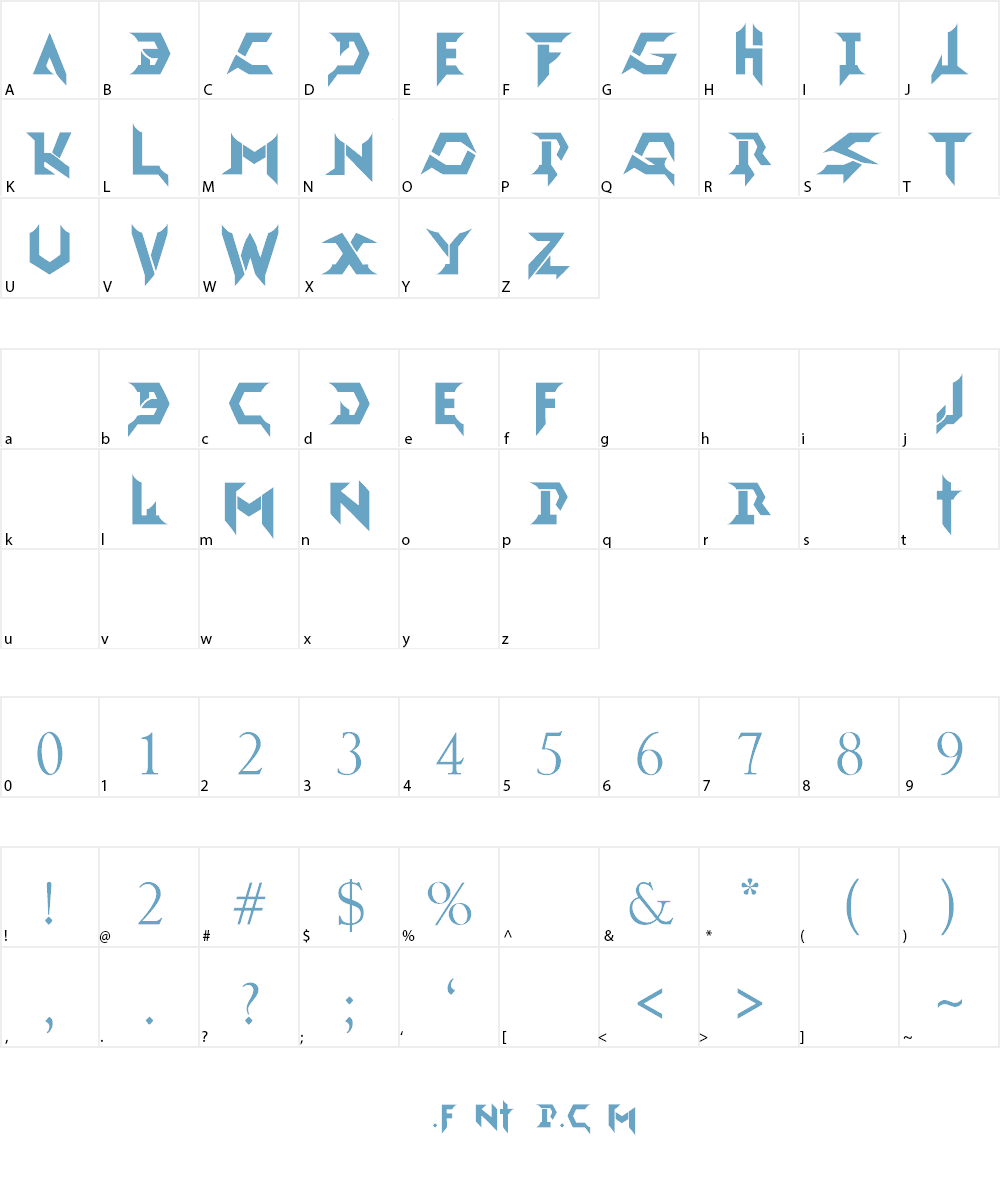
This is a copy of the font used by Death Devil (Metal band in the anime K-ON).
And since I couldn't find the font anywhere on the internet, I decided to make it myself.
NOTE : Only uppercase letters are A to Z, lowercase letters are an alternative of the uppercase. (In other words, only a few lowercase letters will show up)